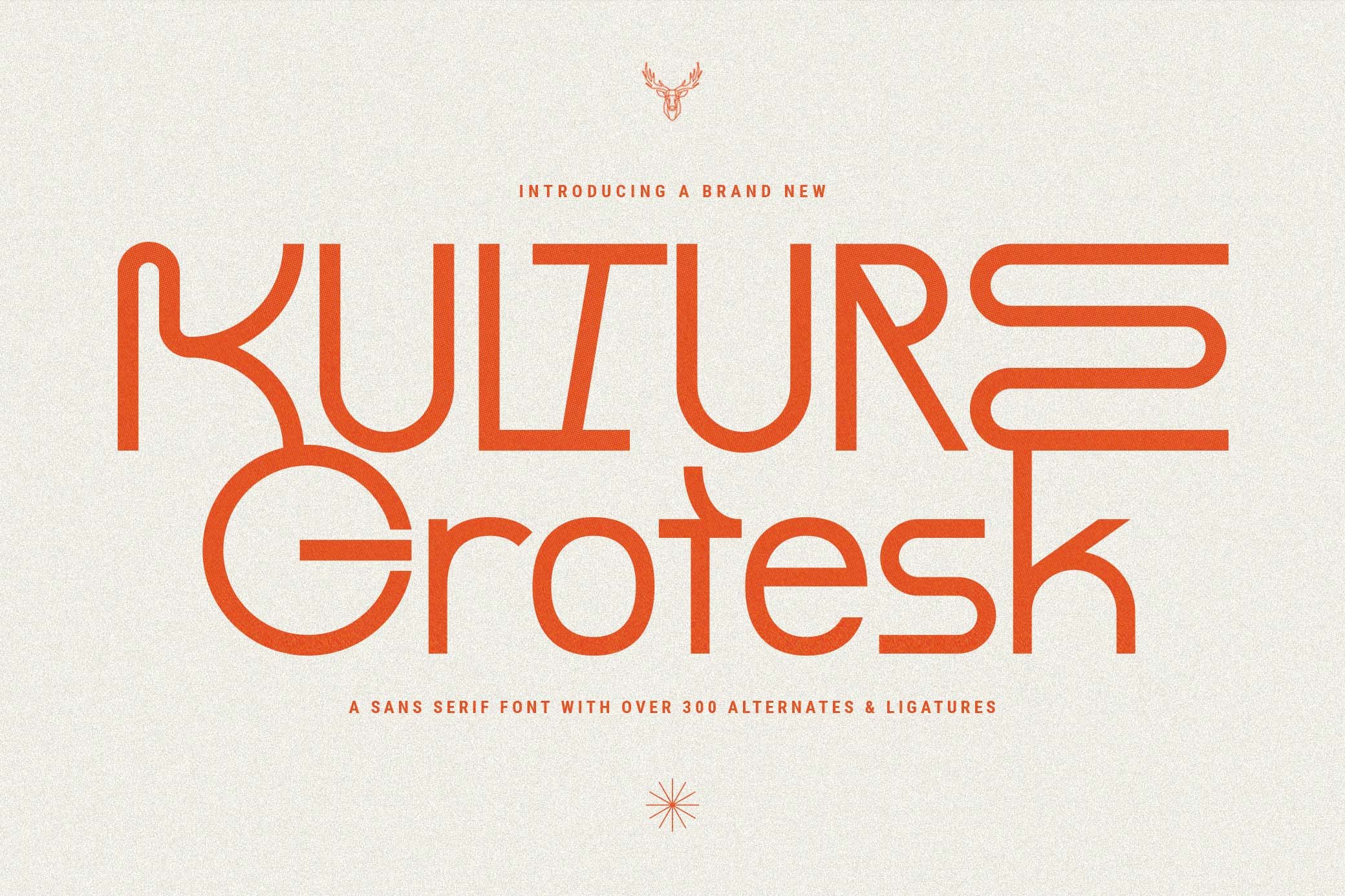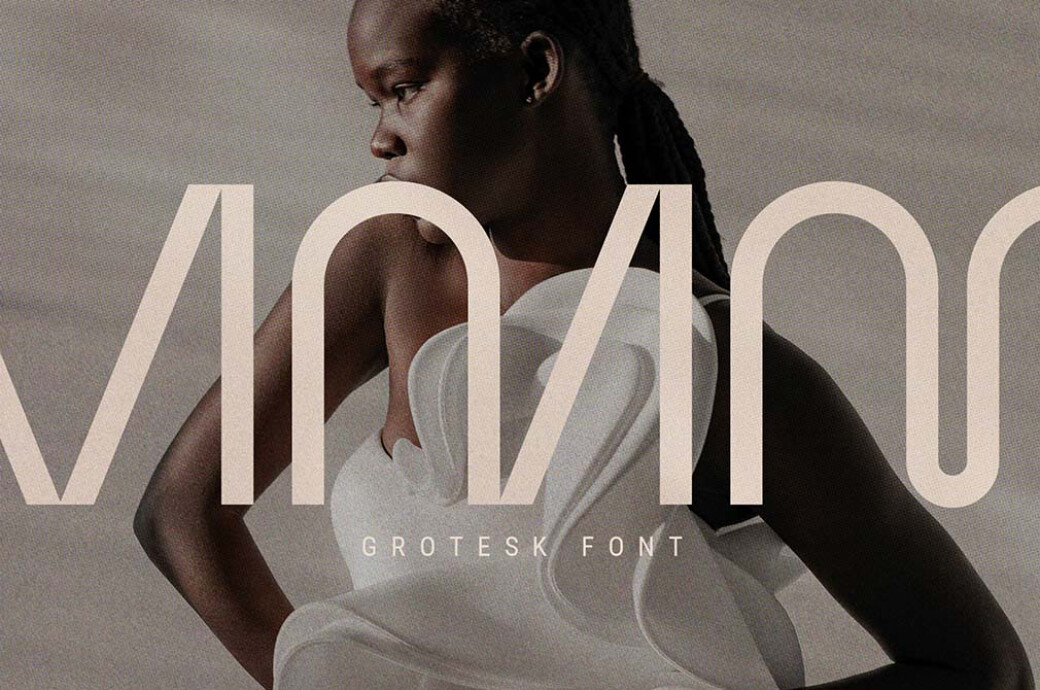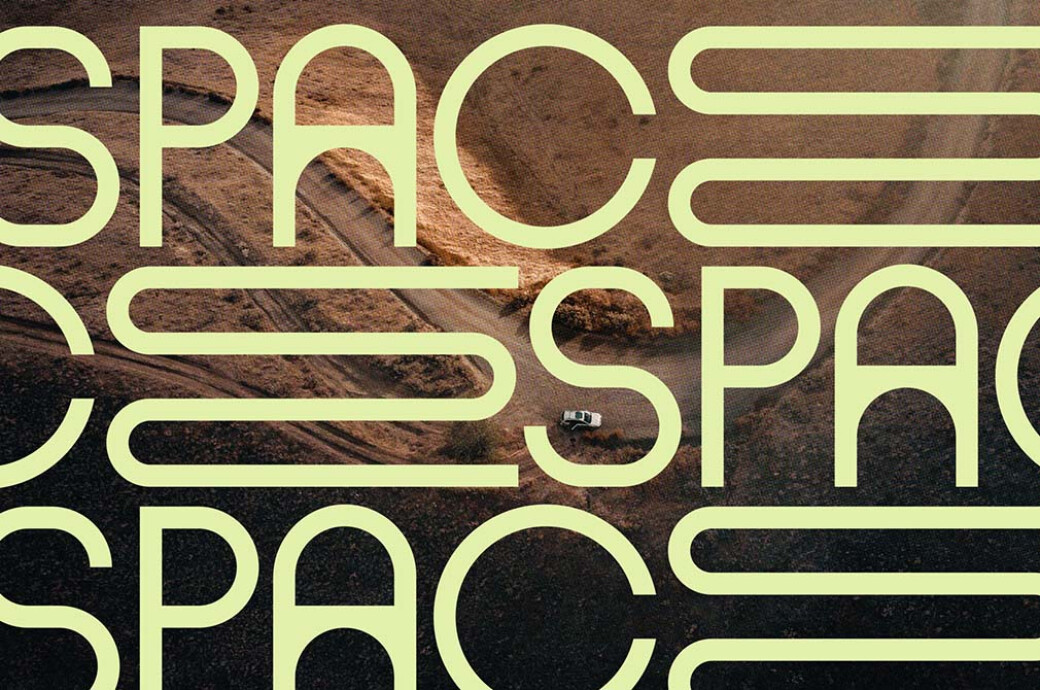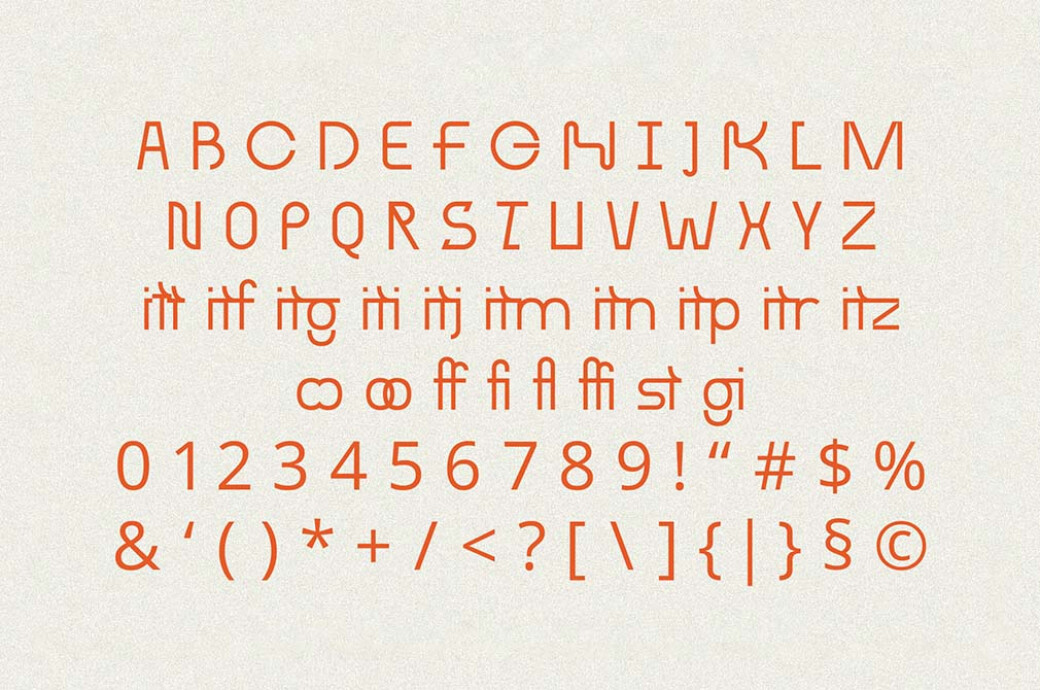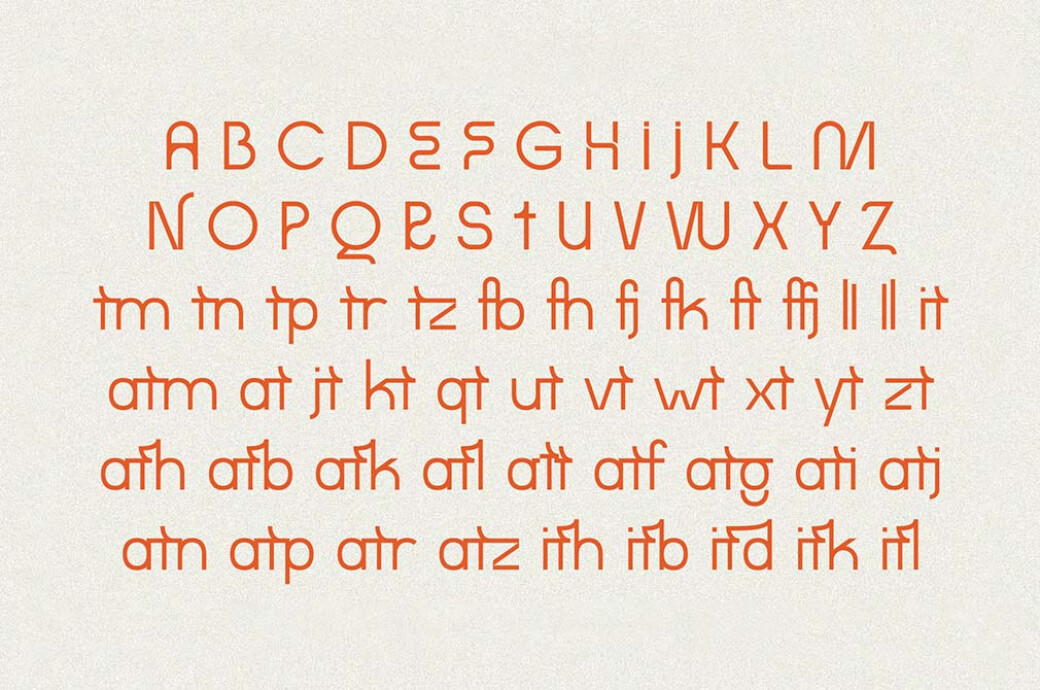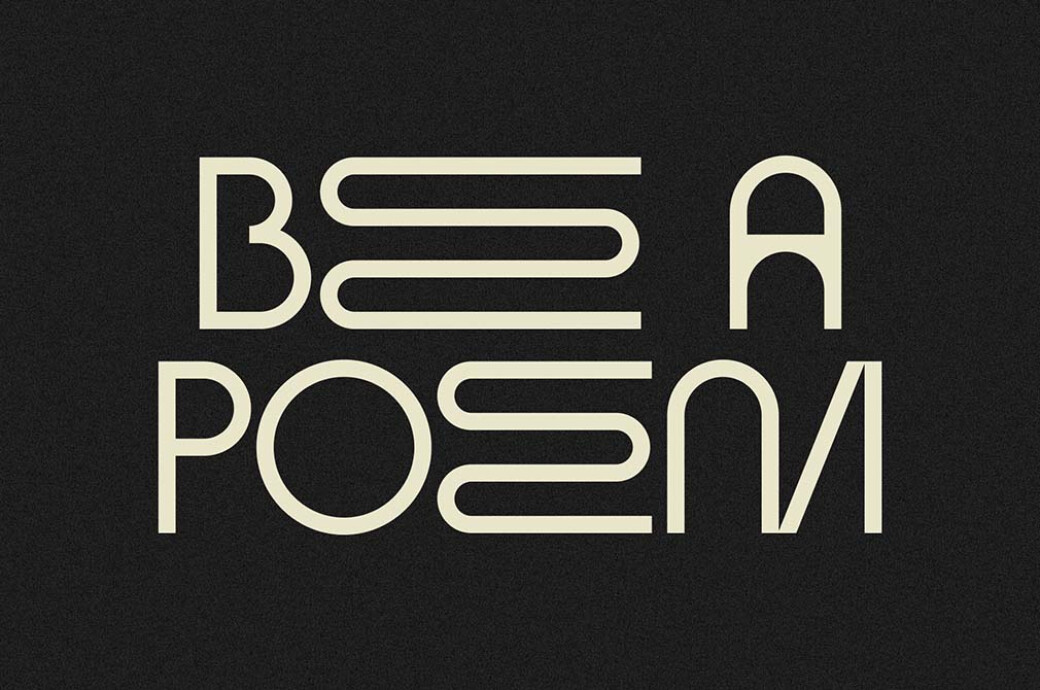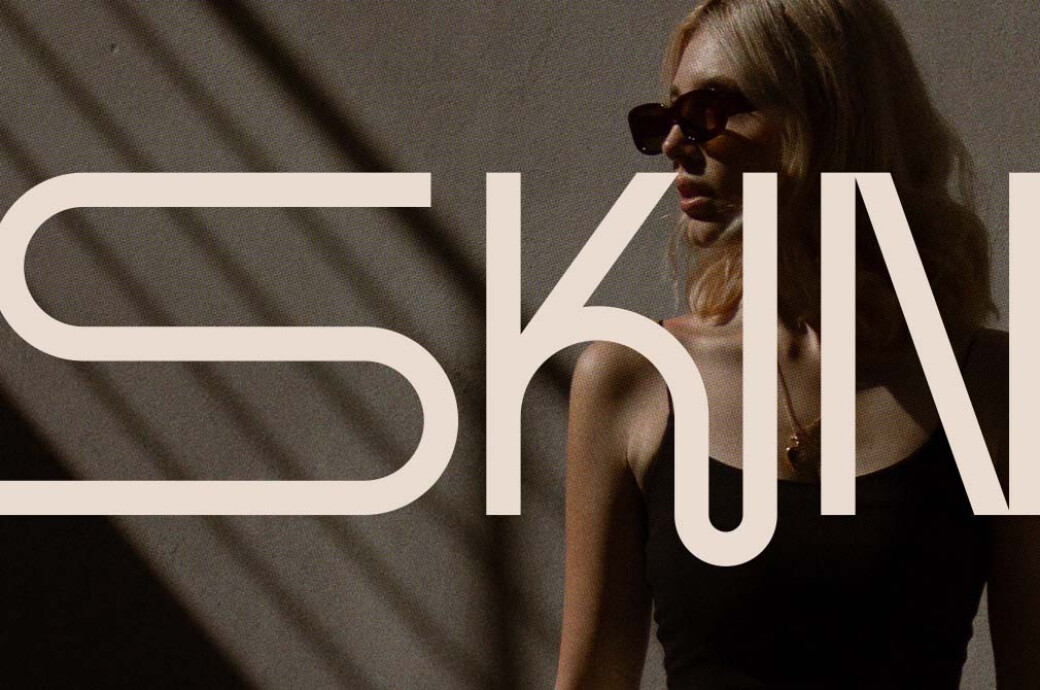
KULTURE GROTESK — Modern Sans Serif
Ready to break into modern typography at maximum speed? We've got you an artistic font ideally made to do so.Kulture Grotesk is a type that won't let you settle for anything less. This font blends modernity, chic aesthetics, and boundless creativity to offer a truly unique and captivating visual experience. With its clean lines and refined forms, it embodies a perfect balance of simplicity and sophistication. One of the font's most exciting features is over 300 alternate letters and ligatures. These unique characters offer a world of possibilities, allowing you to create stunning and original typography for anything from logo designs to headlines.